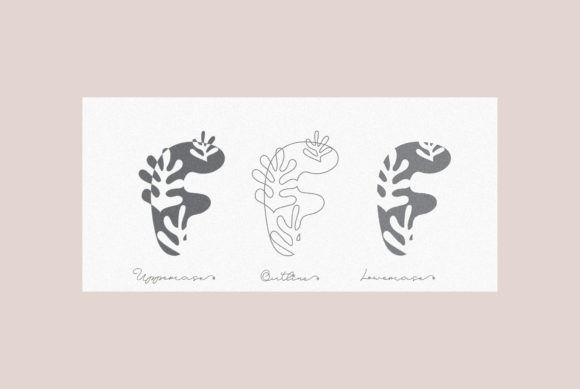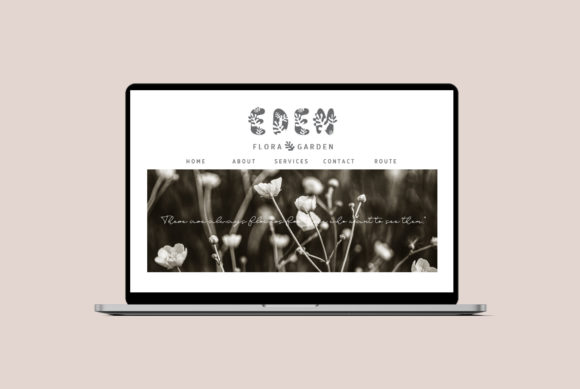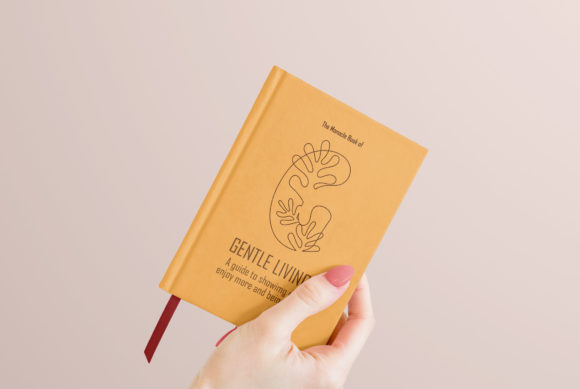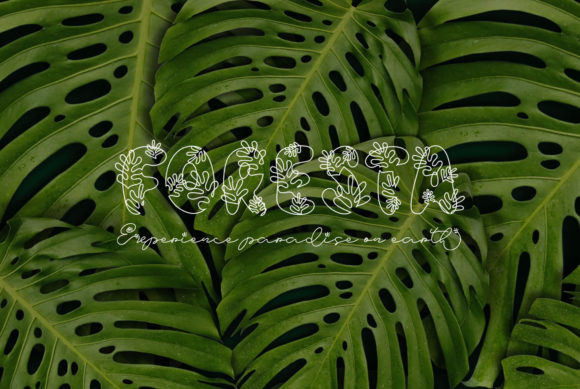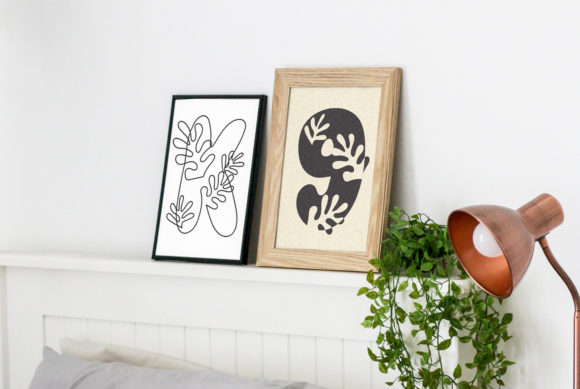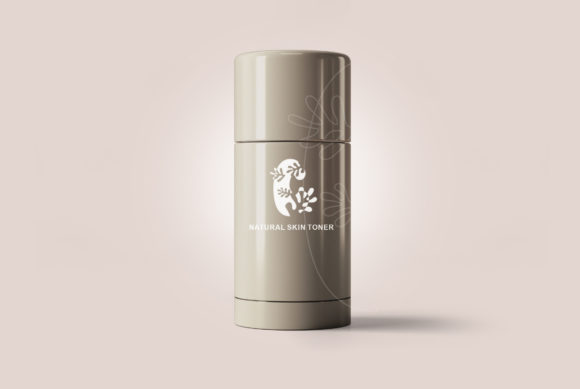
Introducing Flure Font: A Delicate and Elegant Duo for Your Design Needs
Are you a designer or crafter looking for a font that exudes elegance and sophistication? Look no further than Flure Font, a beautiful duo font that combines a script and decorative style to create a truly unique and versatile typeface. In this article, we’ll dive into the features and benefits of Flure Font, and explore how it can elevate your designs to the next level.
A Delicate and Elegant Design
Flure Font is a delicate and elegant font that is perfect for designs that require a touch of sophistication. The font features beautiful and well-balanced characters that are carefully crafted to create a sense of flow and harmony. The script and decorative styles work together seamlessly to create a duo font that is both versatile and stylish.
Whether you’re designing a wedding invitation, a branding campaign, or a craft project, Flure Font is the perfect choice. Its elegant design ensures that your work will stand out from the crowd and leave a lasting impression on your audience.
One of the standout features of Flure Font is its PUA (Private Use Area) encoding. This means that you can access all of the glyphs and swashes with ease, giving you complete creative control over your design. With Flure Font, you can easily add flourishes and embellishments to your text, creating a truly unique and eye-catching design.
A Wide Range of Design Possibilities
Flure Font is an incredibly versatile font that can be used for a wide range of design projects. Its elegant design makes it perfect for:
- Craft projects, such as scrapbooking and card making
- Digital media, such as social media graphics and blog posts
- Print design, such as brochures and flyers
Whether you’re a professional designer or a crafty hobbyist, Flure Font is the perfect choice for any project that requires a touch of elegance and sophistication.
Key Features of Flure Font
So, what sets Flure Font apart from other fonts on the market? Here are some of its key features:
- Delicate and elegant design
- Duo font featuring a script and decorative style
- Beautiful and well-balanced characters
- Versatile and compatible with a wide range of devices and platforms
In conclusion, Flure Font is a stunning duo font that is perfect for designers and crafters looking for a elegant and sophisticated typeface. Its delicate design, PUA encoding, and versatility make it the perfect choice for a wide range of design projects. Whether you’re a professional designer or a crafty hobbyist, Flure Font is sure to become a go-to font in your collection.